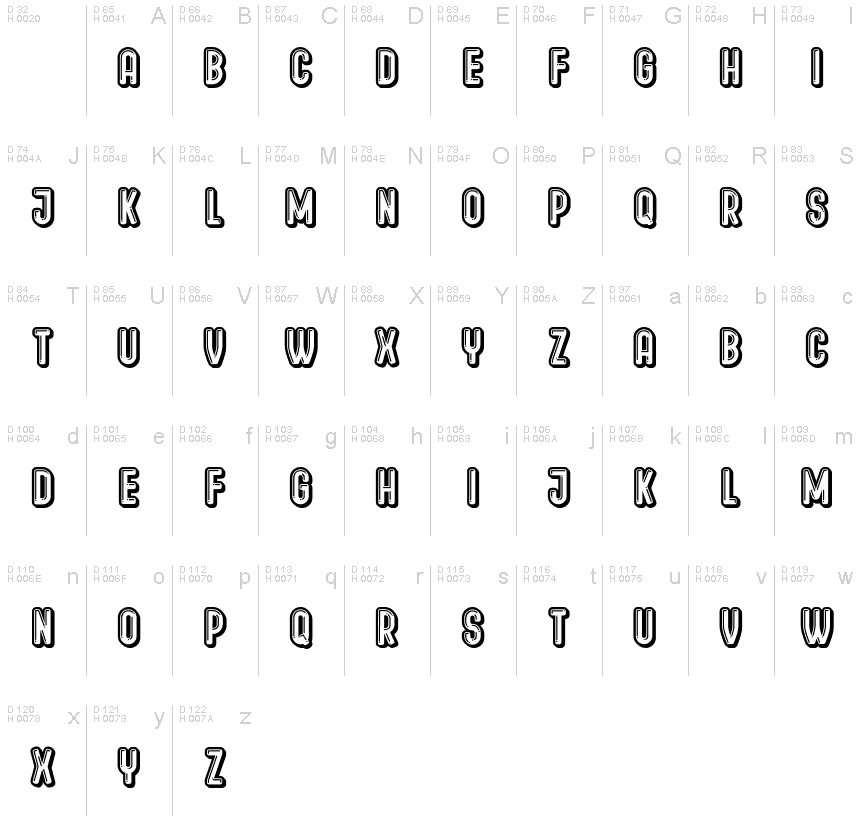
Traversal Regular
Traversal, a captivating display font designed by Vladimir Nikolic, combines elegance with modernity. With its semi-bold weight and extra-condensed width, this font exudes confidence and sophistication. Its unique style makes it perfect for various projects such as fashion magazines, luxury branding, and editorial designs. Let Traversal’s sleek letterforms take your creations to new heights and leave a lasting impression on your audience. Elevate your typography game with this font that effortlessly embodies both style and substance.